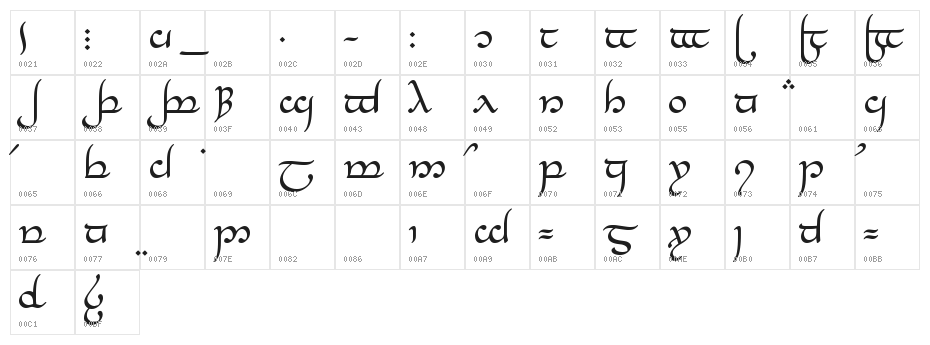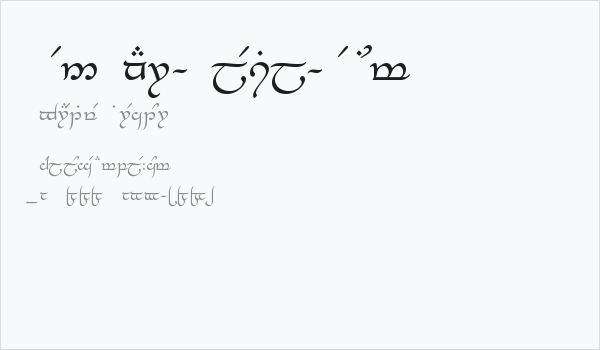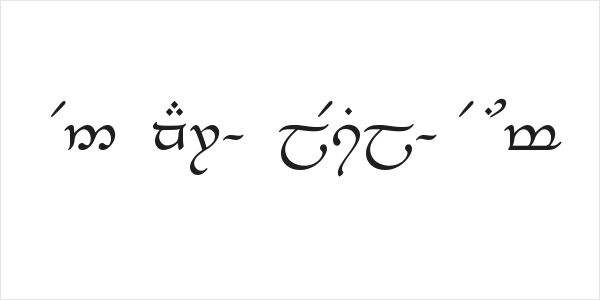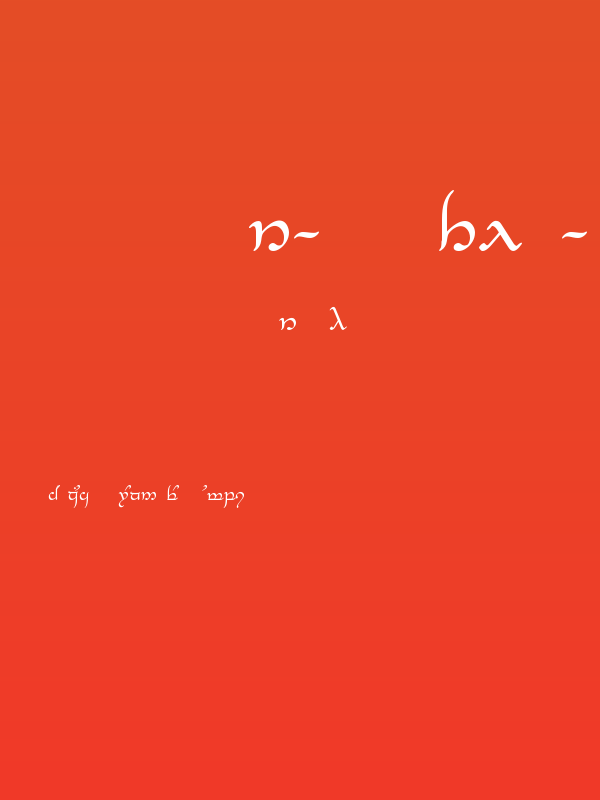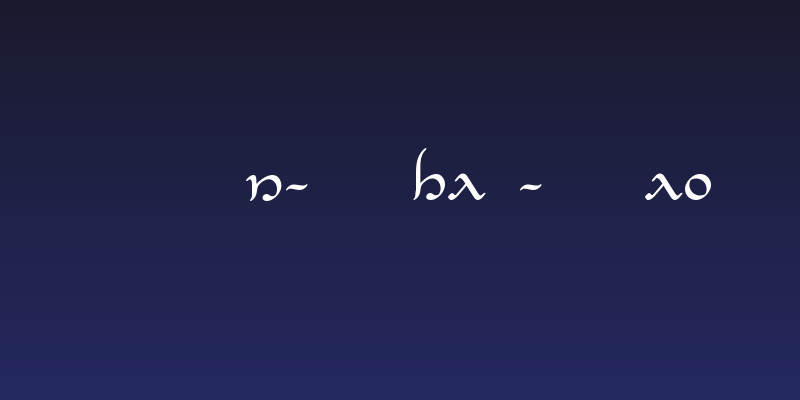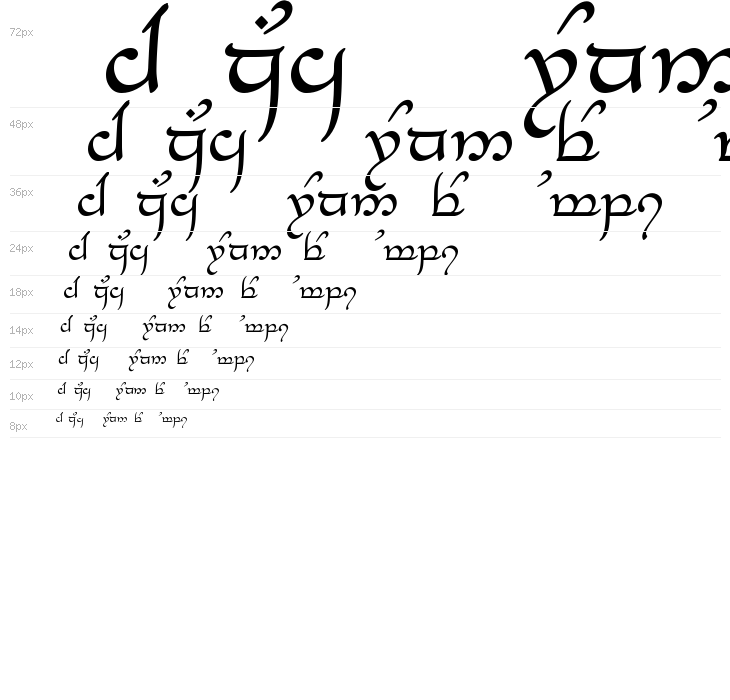
Tengwar-Elesil-Medium Font
Tengwar-Elesil-Medium Description
This font is inspired by the elegant and flowing script of fictional elvish languages, characterized by its intricate and ornate letterforms. The characters exhibit a harmonious blend of curves and sharp angles, creating a sense of fluidity and grace. The strokes are moderately thick, providing a balanced contrast that enhances readability while maintaining an artistic flair. The font's unique style is reminiscent of ancient scripts, making it ideal for projects that require a touch of fantasy or historical ambiance. Its decorative nature makes it suitable for titles, invitations, and other creative applications where a distinctive and enchanting appearance is desired.
| Overall Style | Fantasy, Decorative |
| Use Case | Headlines, Decorative text, Invitations |
| Proposed Projects | Ideal for fantasy-themed projects, book covers, invitations, and decorative titles. |